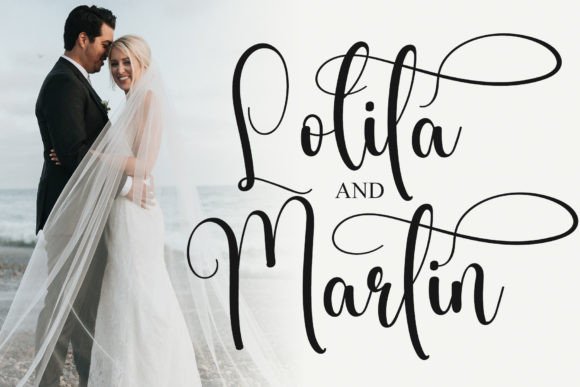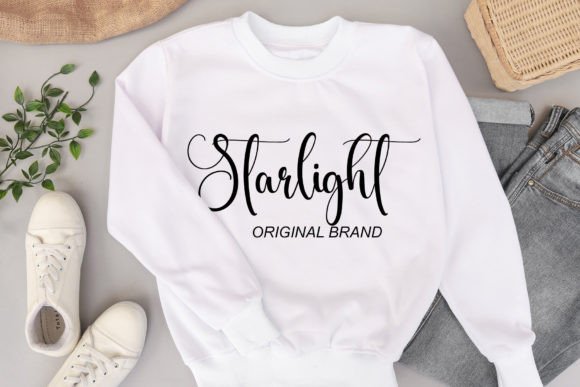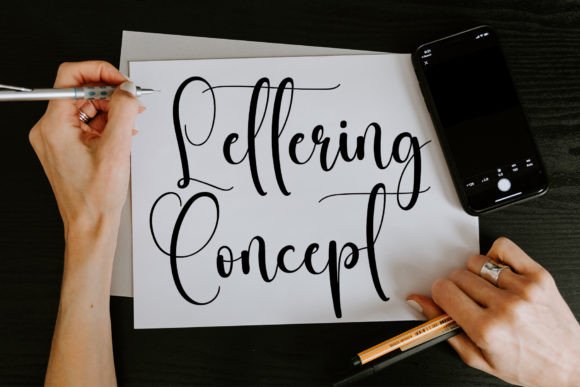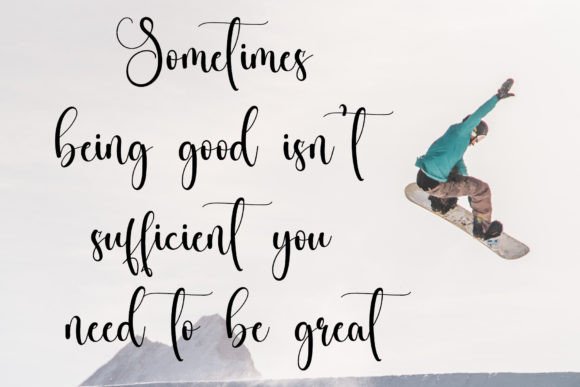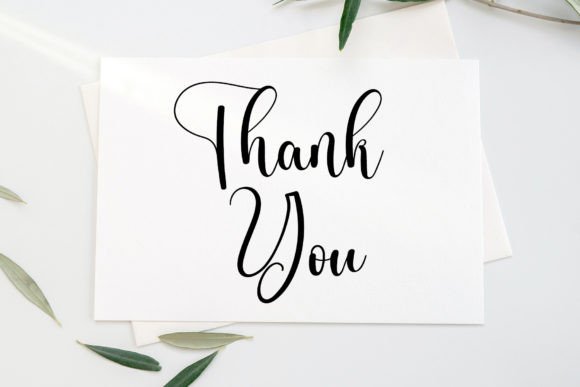
The Magical World of Brutes Font: A Designer’s Dream Come True
I’ll never forget the moment I stumbled upon Brutes Font while working on a DIY project for a client’s wedding invitation. I had spent hours scouring the internet for the perfect handwritten font, but nothing seemed quite right. That was until I discovered Brutes – a game-changing, magical font that instantly elevated my design from ordinary to extraordinary. In this article, I’ll share my journey with Brutes Font, its features, and how to make the most of it in your designs.
A Personal Review: What I Love About Brutes Font
Brutes Font has quickly become a staple in my design toolkit, and for good reason. Here are a few things that I absolutely love about it:
- ✨ Elegant and sophisticated: Brutes Font adds a touch of luxury to any design, making it perfect for high-end projects or special occasions.
- ✅ Highly versatile: Whether you’re designing for Instagram, creating calligraphy scripts for DIY projects, or crafting beautiful wedding invitations, Brutes Font adapts seamlessly.
- 💫 Unique character: The font’s handwritten style has a distinct personality that sets it apart from more generic fonts.
While Brutes Font is an amazing addition to any design project, there are a few minor quirks to be aware of:
- ⚠️ Limited use in very small sizes: Due to its intricate details, Brutes Font can become difficult to read when used in very small sizes (below 10pt). It’s best used in larger sizes where its beauty can shine.
- 🤔 Occasional kerning issues: As with any font, you may encounter some kerning issues, especially when using it in combination with other fonts. However, these can usually be easily adjusted in most design software.
The Story Behind Brutes Font
Brutes Font was created with the goal of bringing a touch of magic to your designs. Its designer, inspired by the beauty of handwritten calligraphy, carefully crafted each letter to evoke a sense of elegance and sophistication. The result is a font that’s both versatile and eye-catching.
| What makes Brutes Font unique? | Brutes Font’s unique blend of elegance and sophistication, combined with its highly versatile nature, makes it a standout choice for designers. |
| Is Brutes Font suitable for body text? | While Brutes Font is stunning, it’s best used as a display font or for short paragraphs. Its intricate details can make it difficult to read in large blocks of text. |